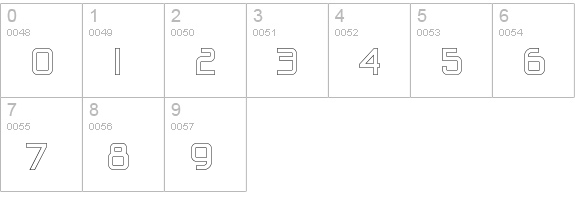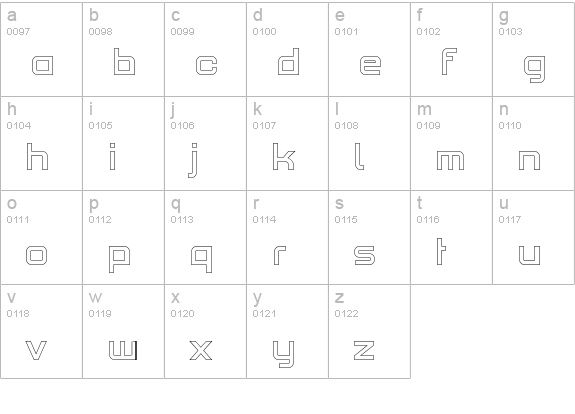
PFHausSquarePro-LightOutline Font Details
PFHausSquarePro-LightOutline font is a modern and sleek typeface that exudes sophistication and elegance. With its clean lines and minimalist design, this font is perfect for a wide range of design projects, from branding to editorial design. The light outline style adds a unique touch to any text, making it stand out while still maintaining a sense of subtlety. What's even better is that PFHausSquarePro-LightOutline font is available for free download at FontsMarket.com. Yes, you read that right - you can get your hands on this stunning font without spending a penny. Whether you're a designer looking to expand your font collection or a hobbyist wanting to add a touch of style to your projects, this font is a must-have. Don't miss out on the opportunity to enhance your designs with the elegance and versatility of PFHausSquarePro-LightOutline font - download it for free today at FontsMarket.com!